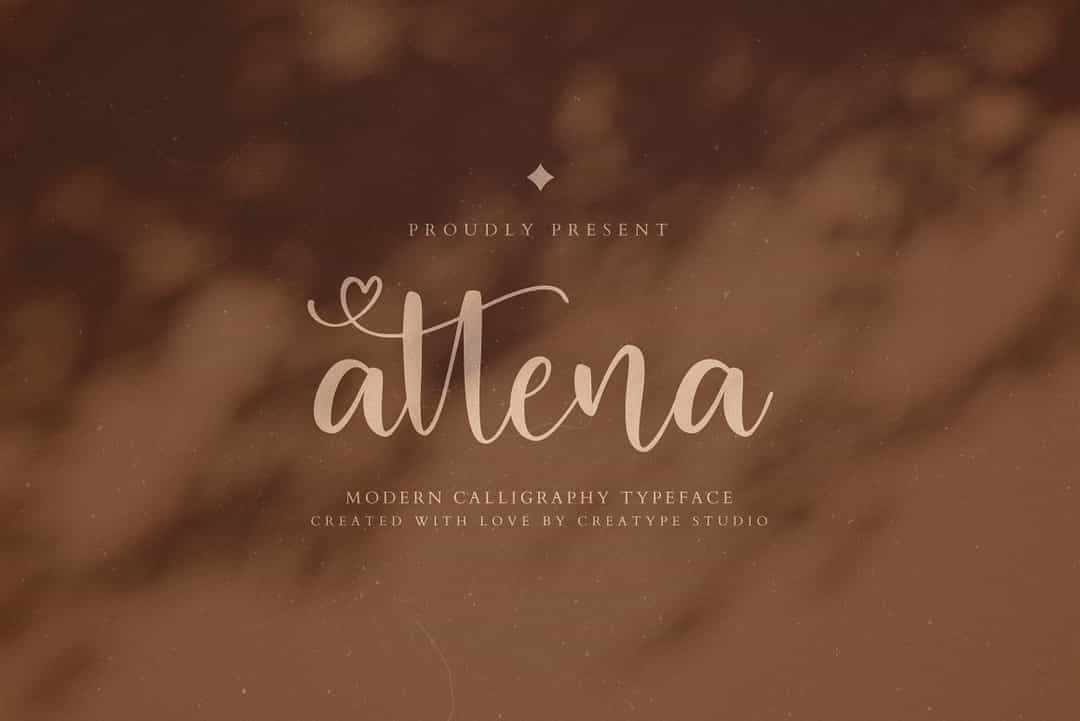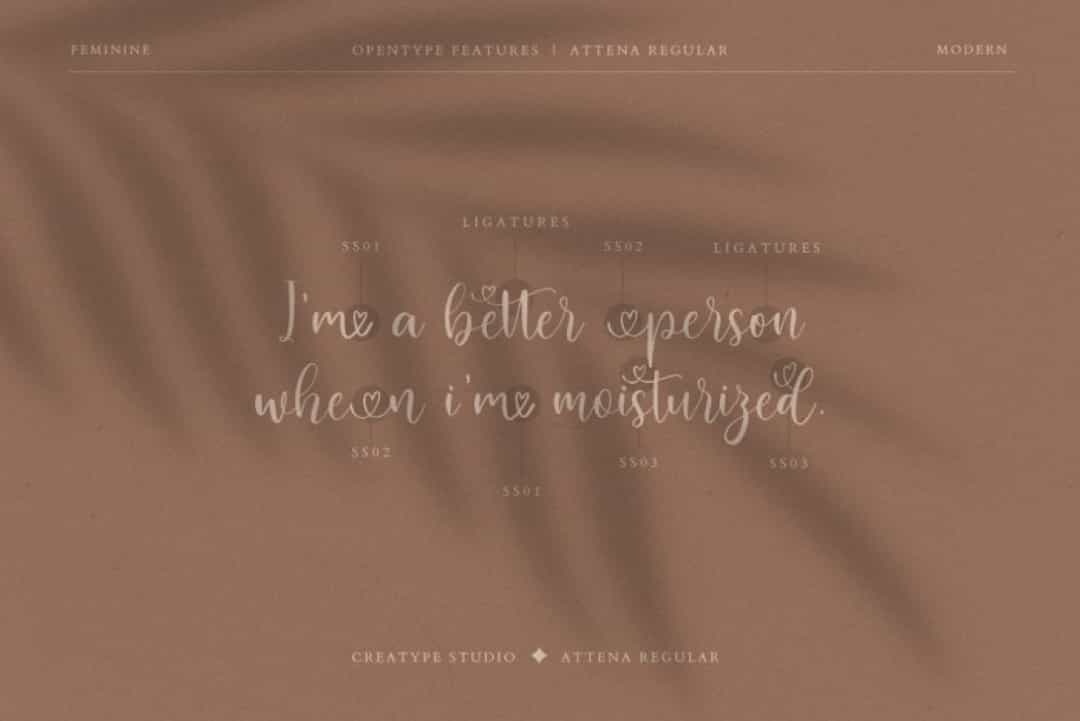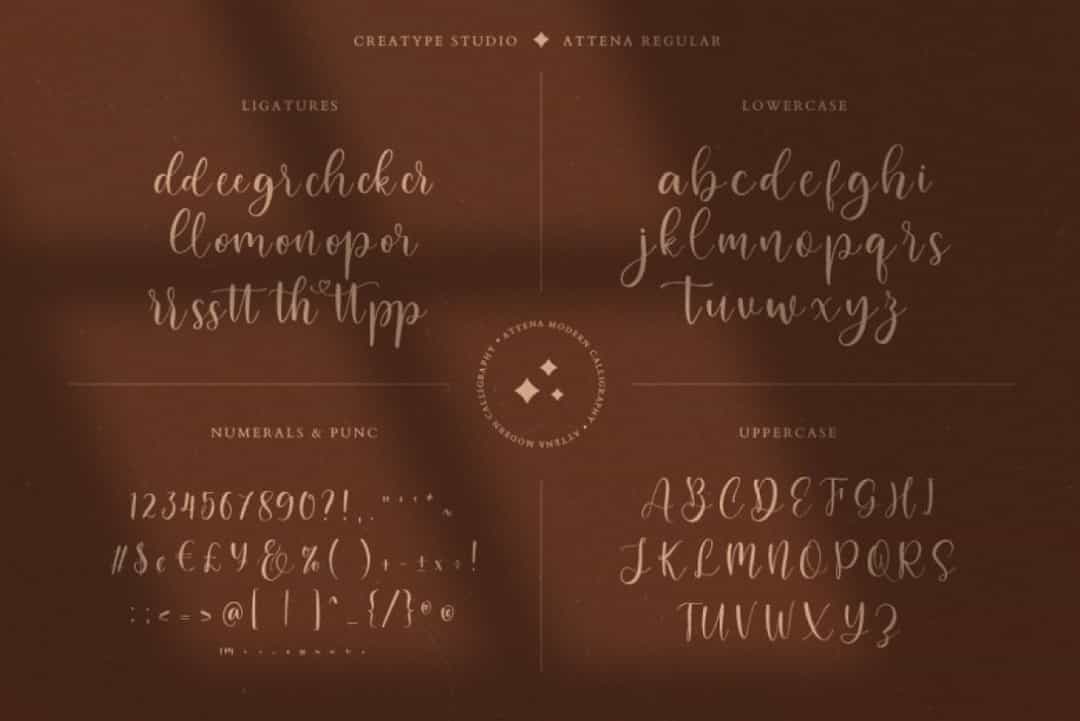
Attena is an innovative script type for calligraphy that features an attractive love swash effect present in every font. Attena was made with love in mind; with 63 options and 17 ligatures available to make your work look stunningly exceptional.